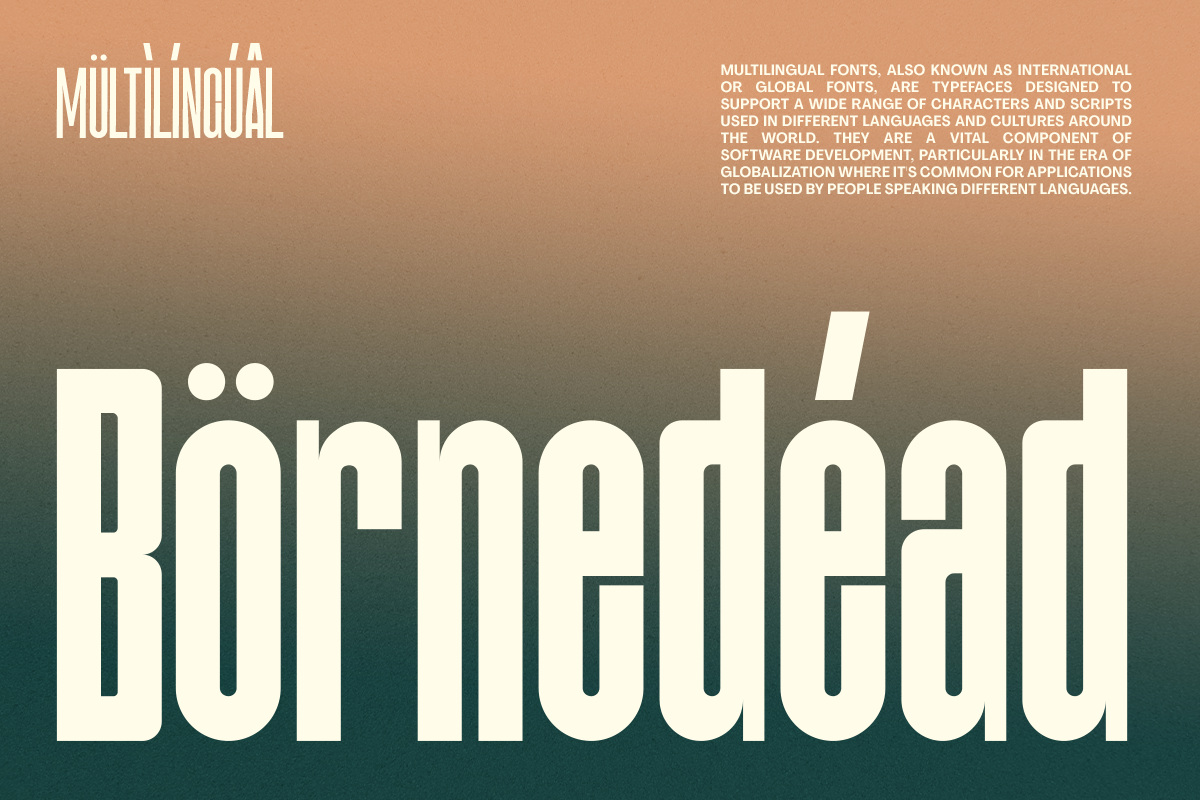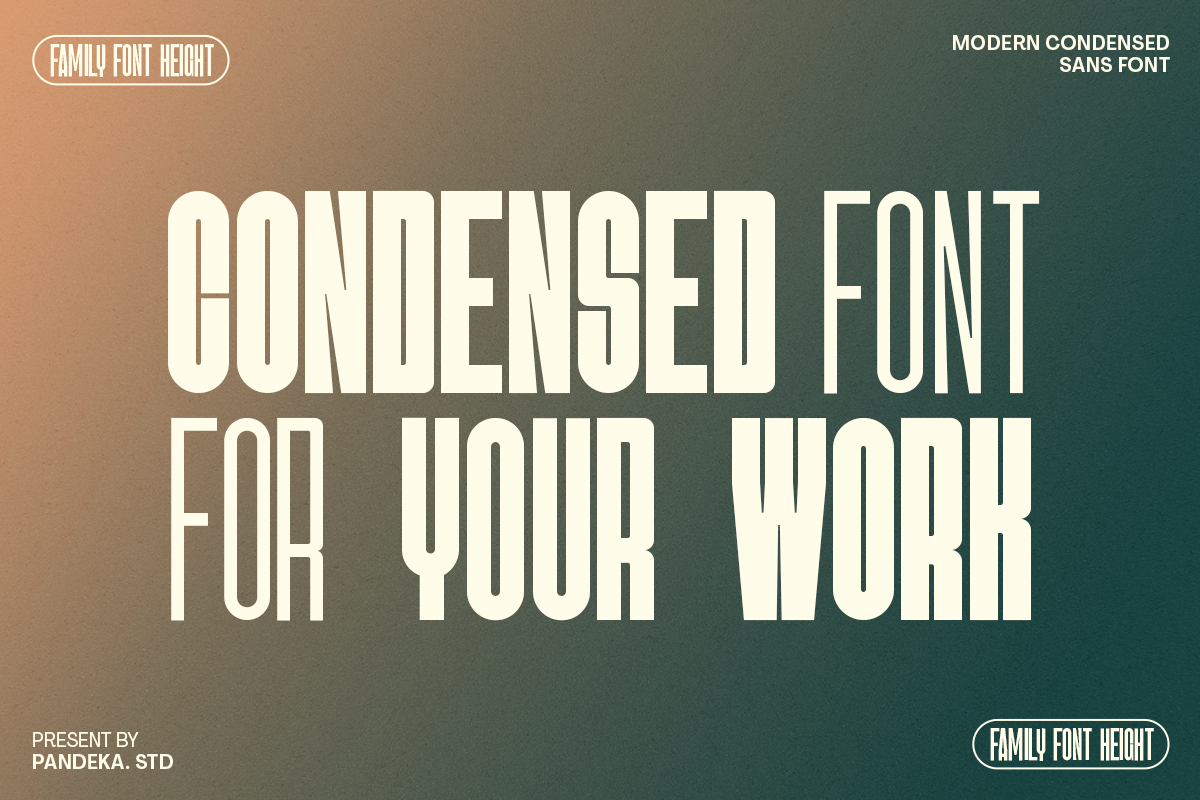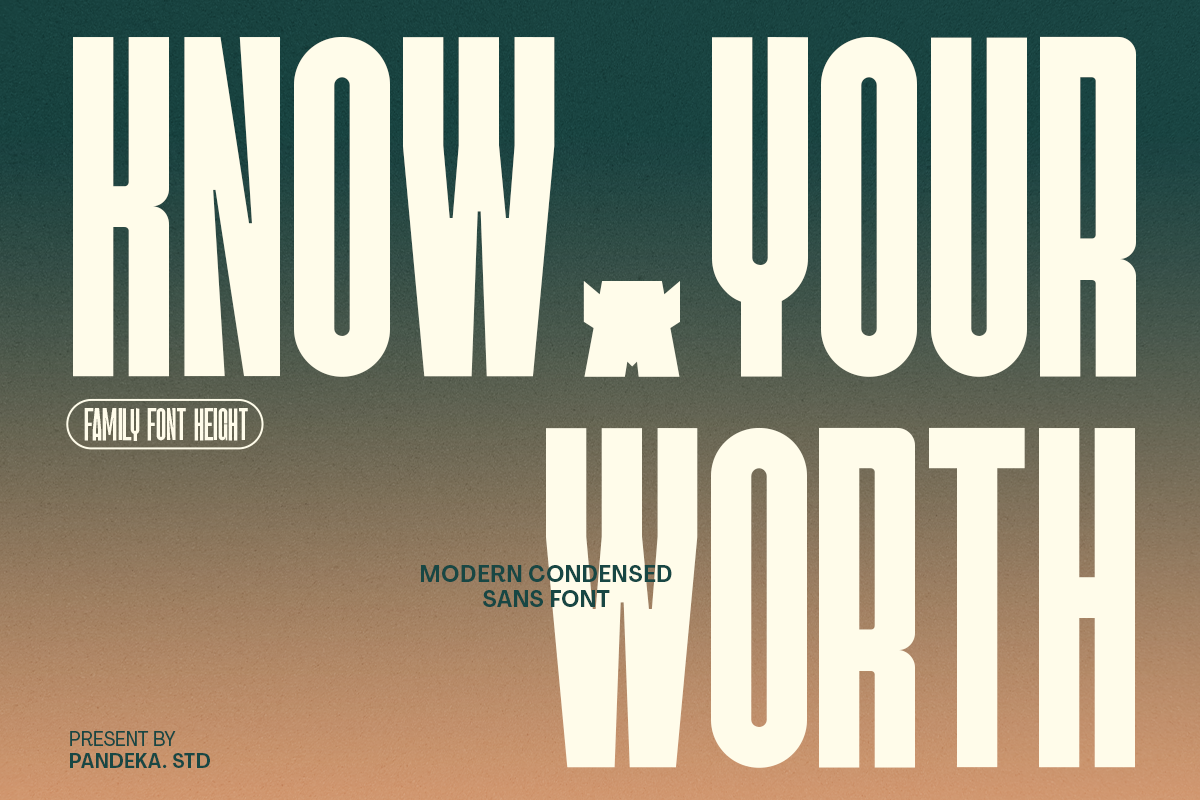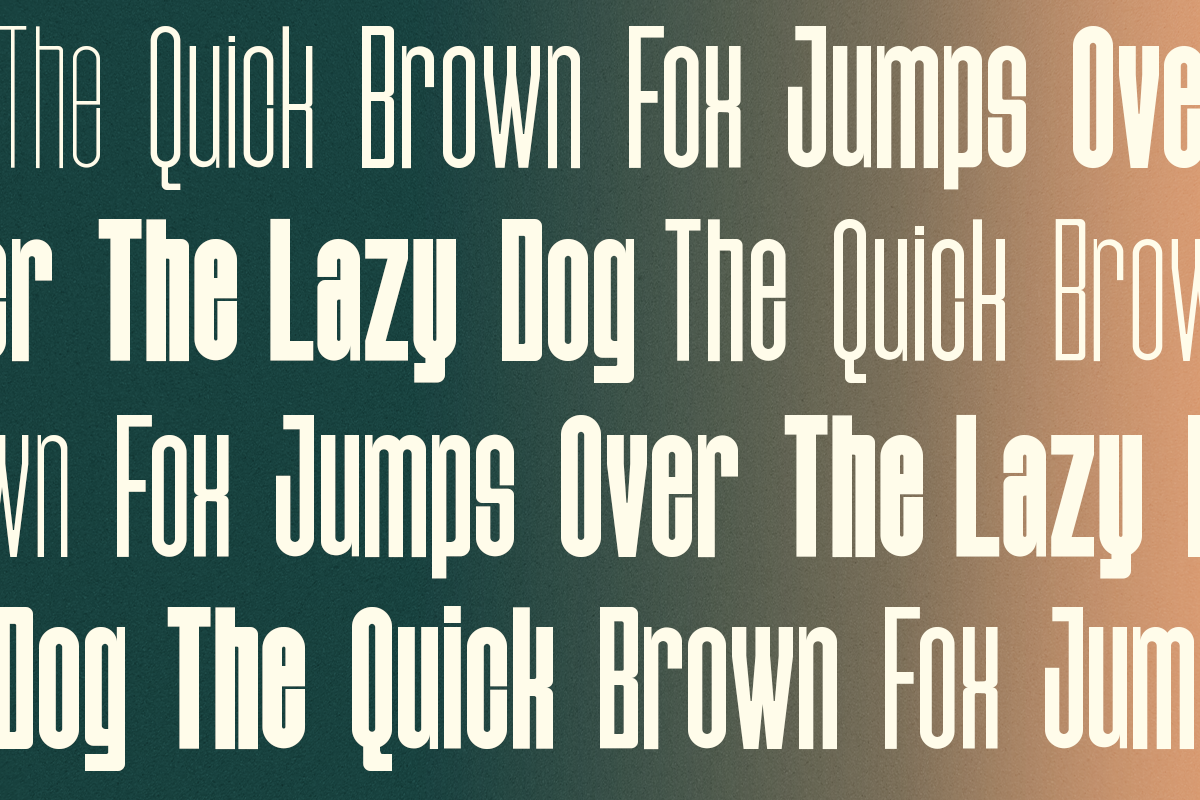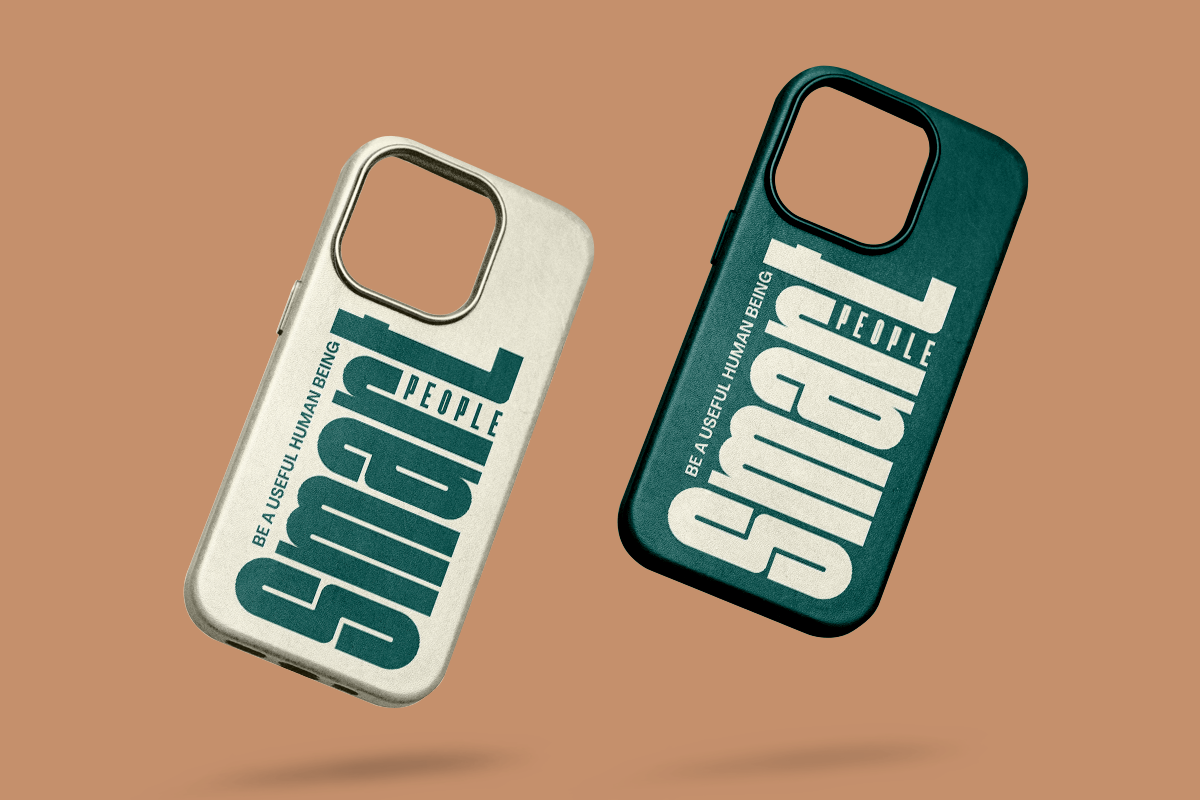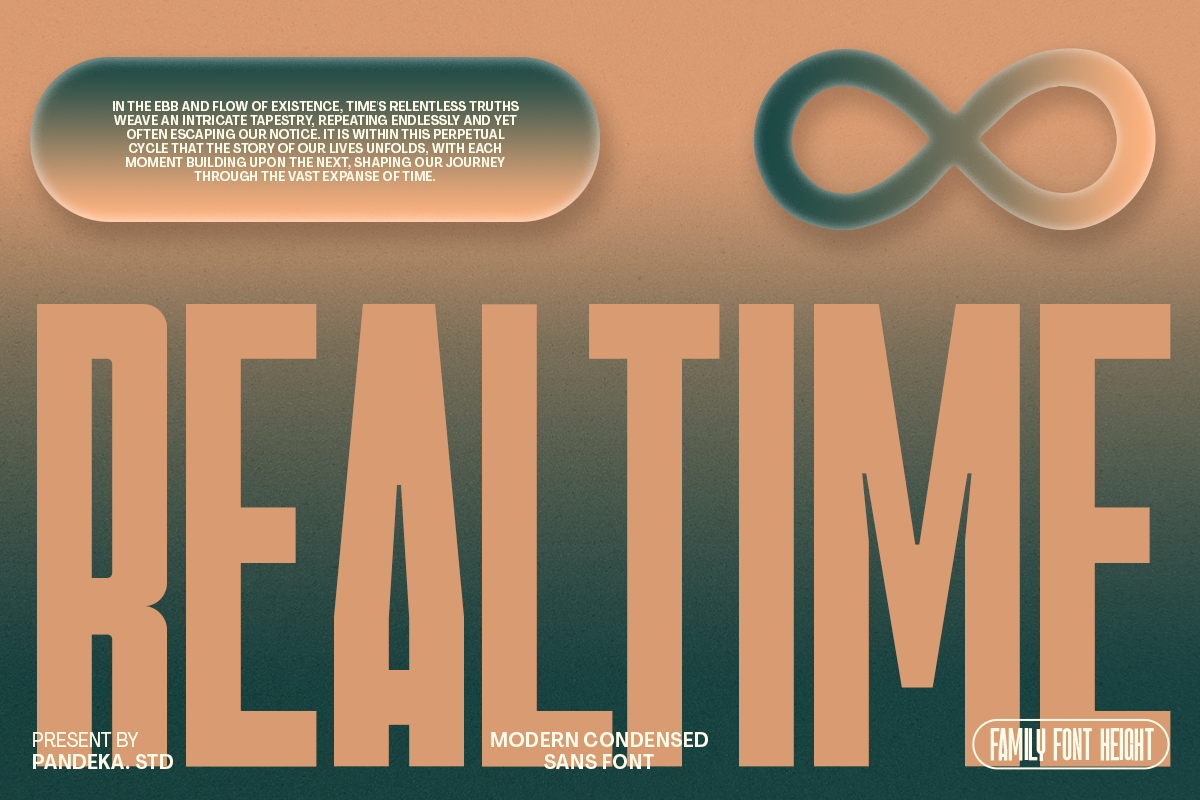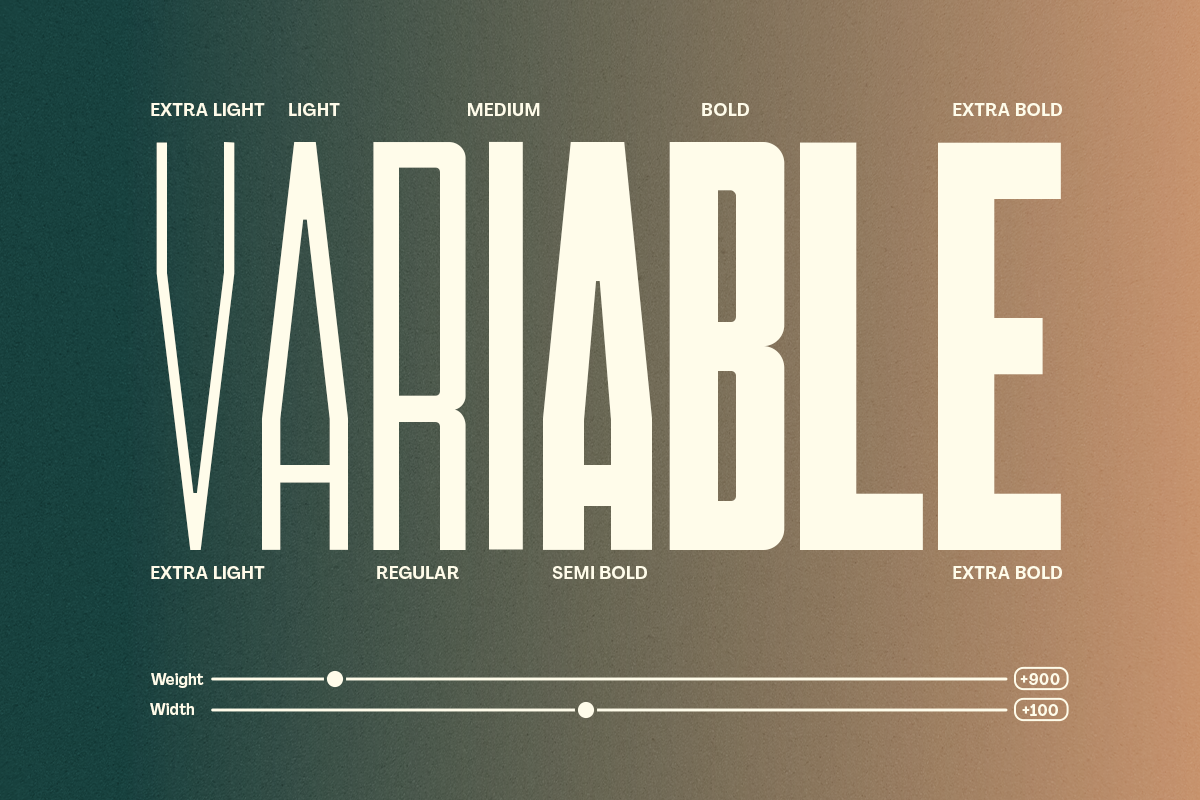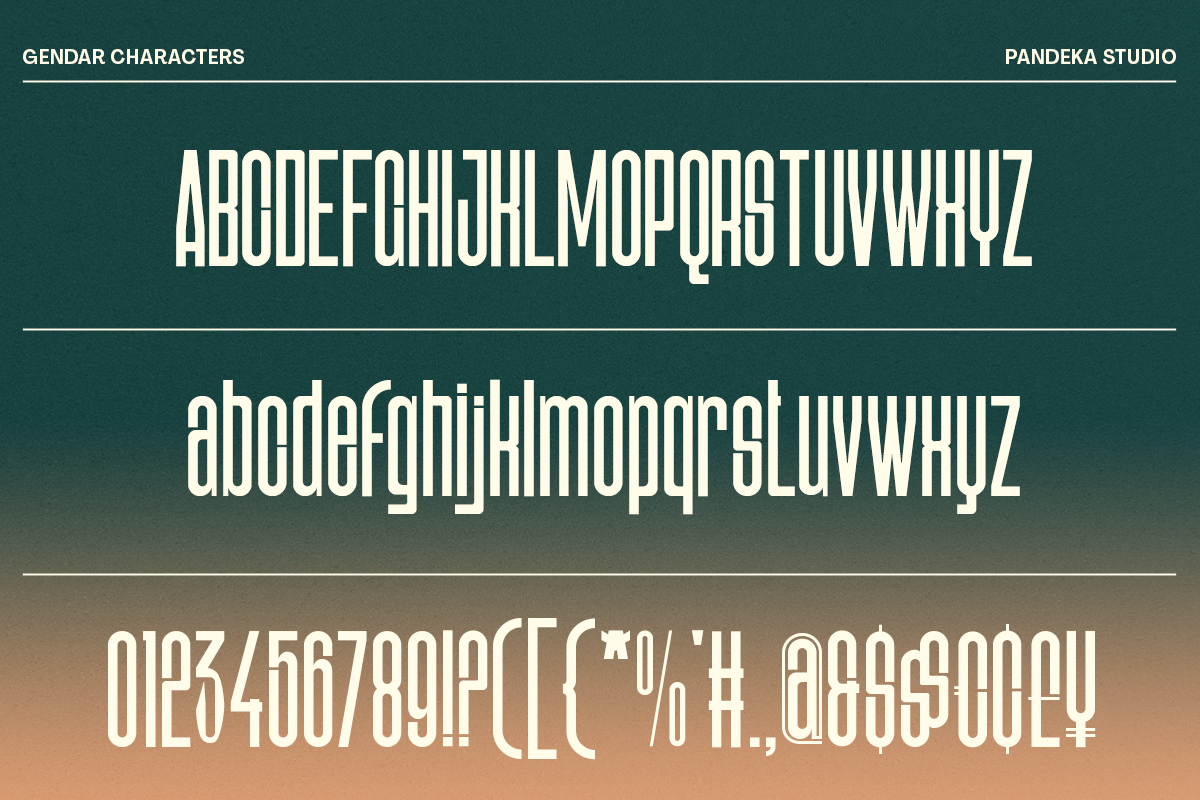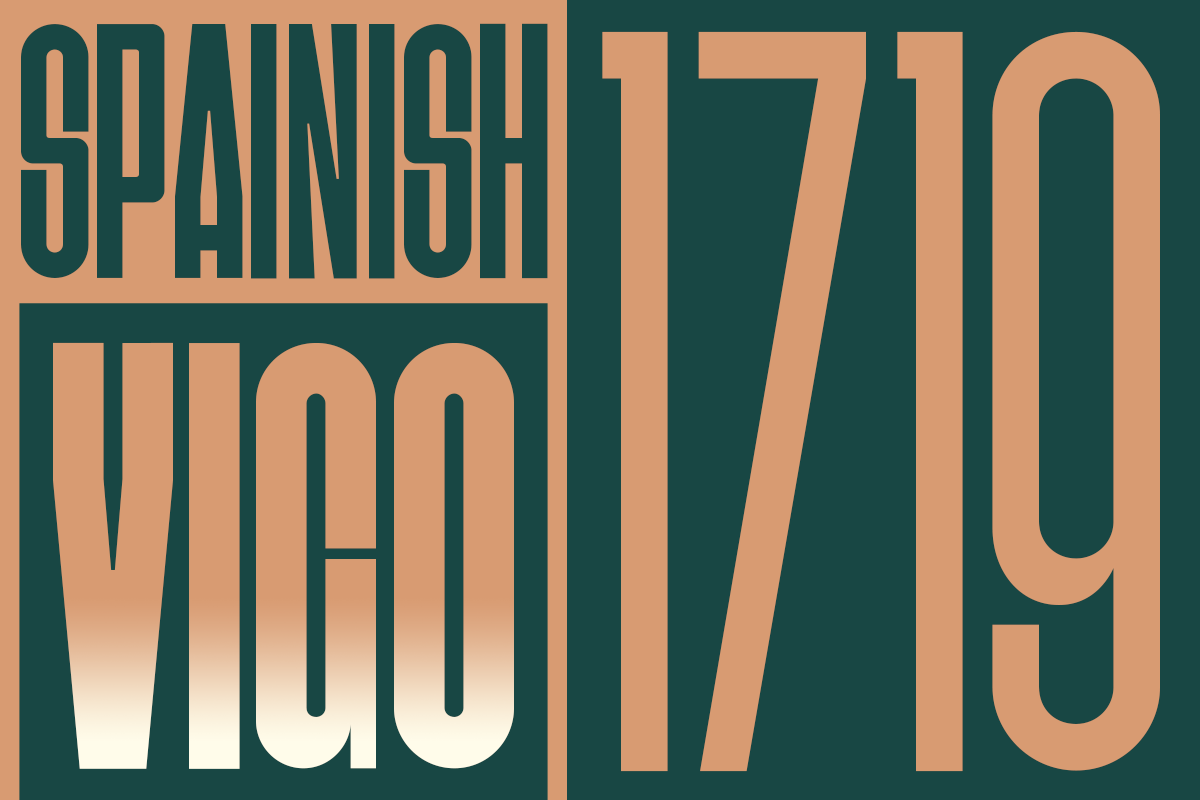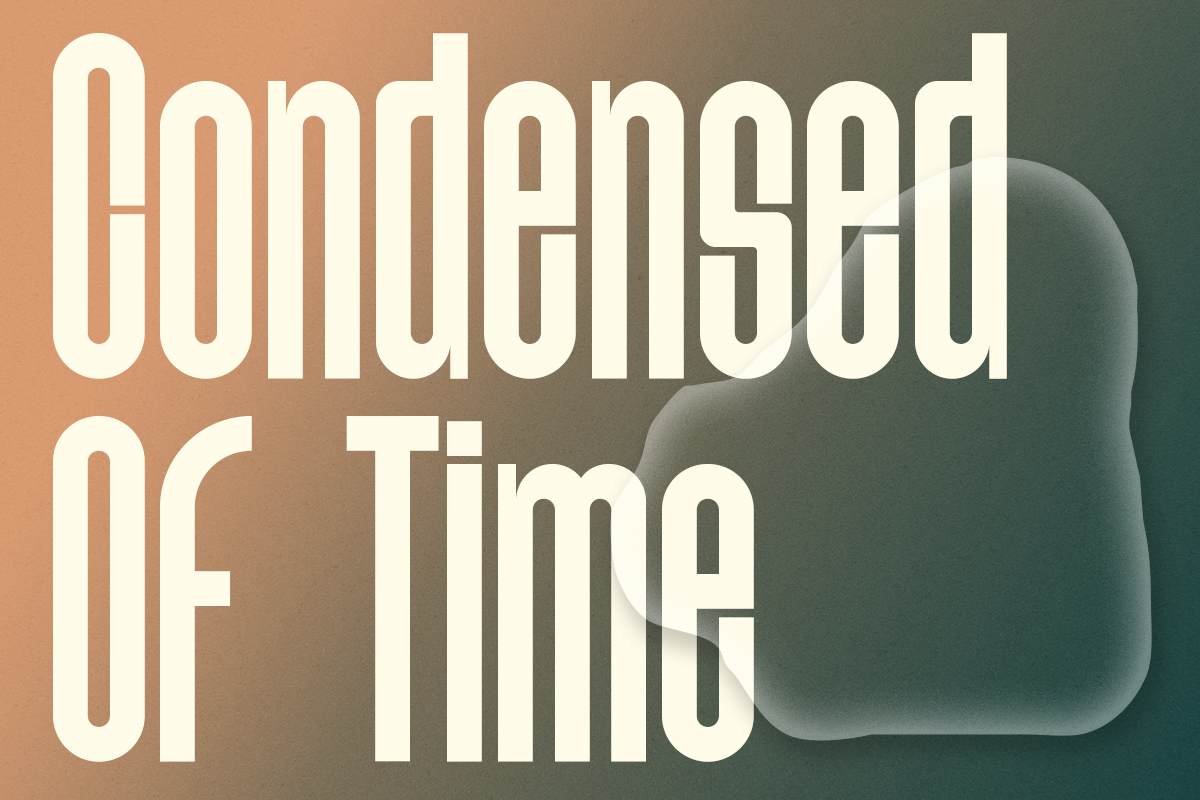
Gendar - Condensed Font Family
Introducing Gendar! – An ultra-condensed sans serif with a style that is very different from the others
Gendar is a condensed sans-serif typeface created to be used for bold titles with distinctive shapes in a display font way to make it legible for contemporary use. Come with single-weight, legible, and expressive shapes. Its glyph catalog provides an easy-to-compose system for Latin languages with high x-height and tight line spacing.
Gendar comes in 6 font styles (Extra Light, Light, Regular, Medium, SemiBold, Bold, ExtraBold), Its weight is superior in posters, social media, headlines, magazine titles, clothing, large print formats - and wherever you want to be seen. Inspired by the style of design that is currently popular, this is the answer to all the needs of every idea that you will pour into this modern era!
- Unique Gylph Letters